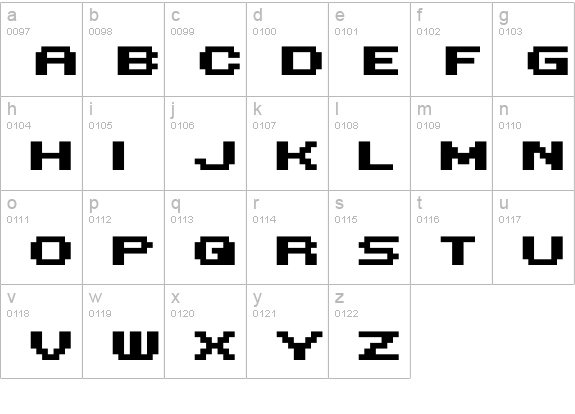
MINI 7 Extended Bold Font Details
MINI 7 Extended Bold is a strong, high-contrast, extended-width variant in the MINI typeface family \xE2\x80\x94 well suited to headlines, attention-grabbing titles, and strong calls-to-action.
MINI 7 Extended Bold font is a striking and modern typeface designed to make a bold statement. Its sleek and extended characters exude a sense of strength and confidence, making it perfect for attention-grabbing headers or impactful branding projects. The MINI 7 Extended Bold font is versatile and can be used across a variety of design applications, from posters to logos to packaging. The best part? This powerful font is completely free to download at FontsMarket.com. Take advantage of this incredible offer and elevate your designs with the MINI 7 Extended Bold font today!